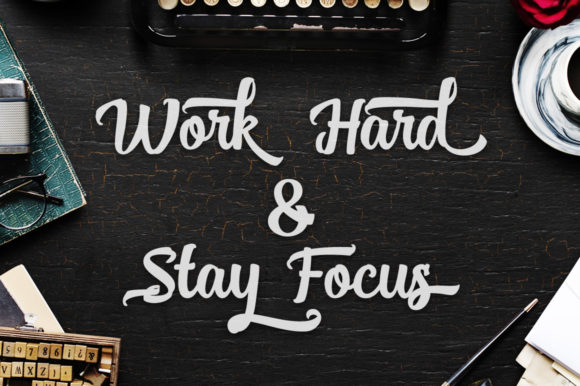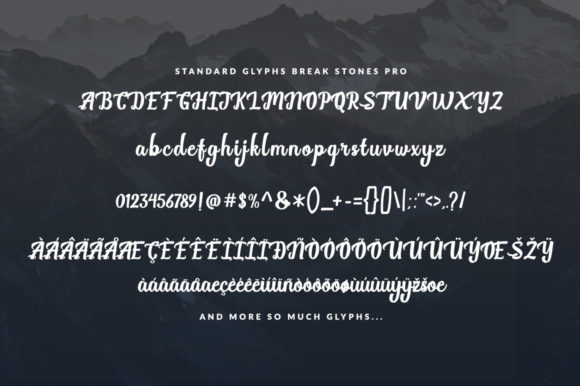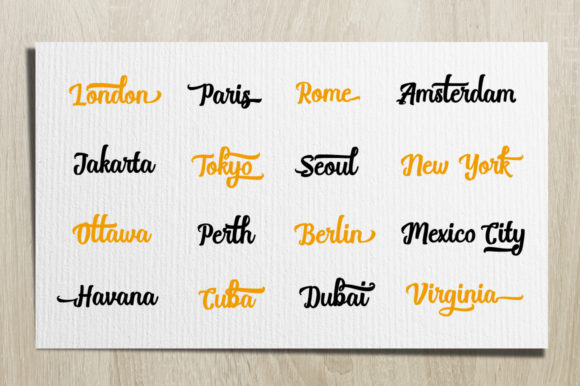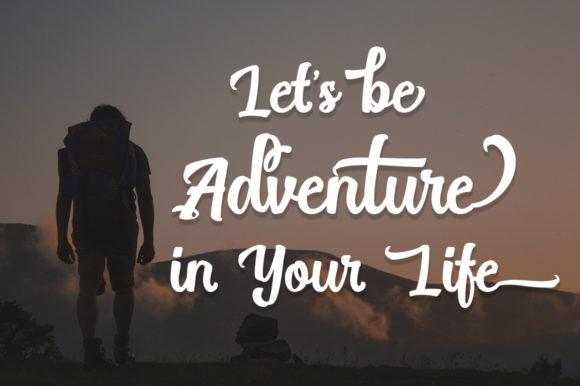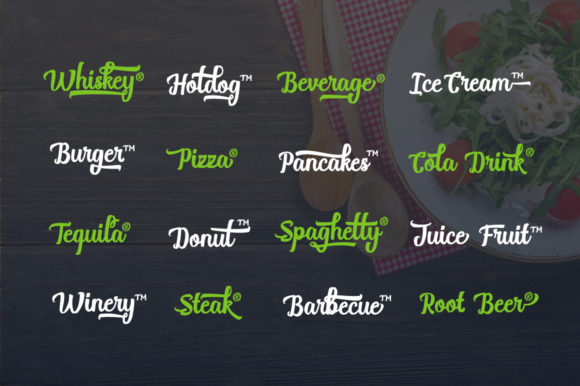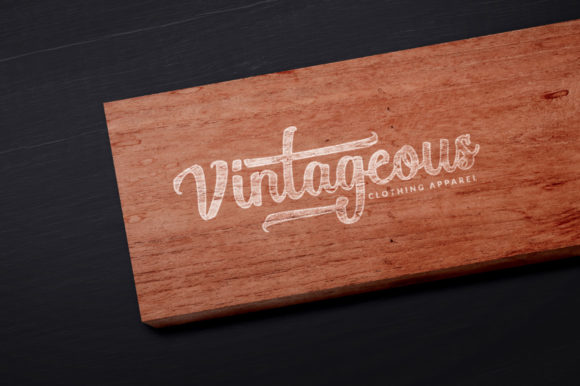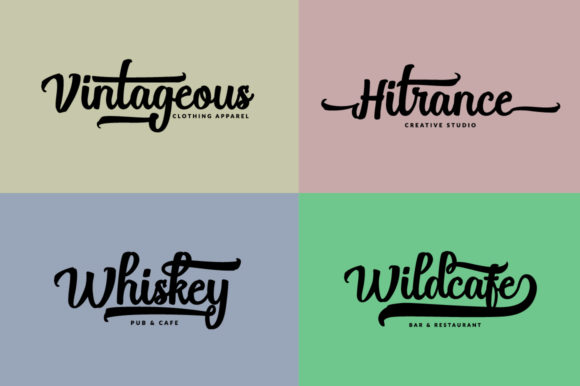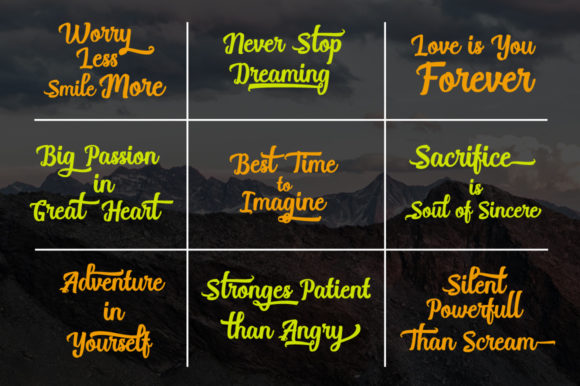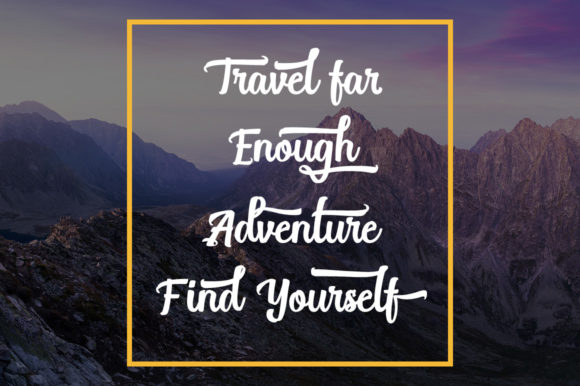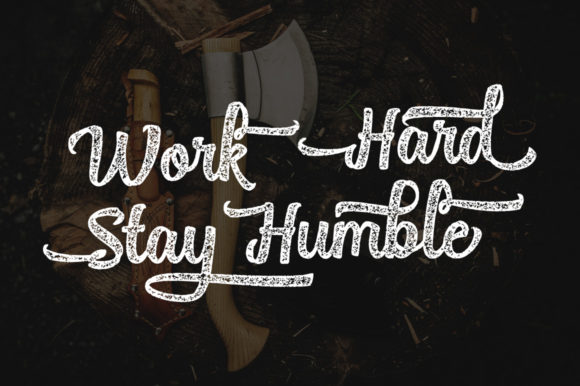
HomeScript FontsBreak Stones Font Script Fonts Break Stones Font FacebookXPinterestWhatsApp Break Stones Font Poster 2 Break Stones Font Poster 3 Break Stones Font Poster 4 Break Stones Font Poster 5 Break Stones Font Poster 6 Break Stones Font Poster 7 Break Stones Font Poster 8 Break Stones Font Poster 9 Break Stones Font Poster 10 Break Stones Font Poster 11 About Break Stones Font Break Stones is a playful brush-style script font. Get motivated by its adventurous character! DOWNLOAD ON CREATIVE FABRICAThis font is sold and delivered by Creative Fabrica. Font Canyon may earn a commission if you buy through this link. People also explored Maletha Pink Daisy Font Soban Chinese Monogram Font Balfontheim Signature Font Fish Lover Font Aussie House Font Montreal Script Font Paradise Font Small Heath Font 305 0 TagsBreak Stones Font Previous articlePintenium FontNext articlePinkalova Font LEAVE A REPLY Cancel reply Comment: Please enter your comment! Name:* Please enter your name here Email:* You have entered an incorrect email address! Please enter your email address here Website: Save my name, email, and website in this browser for the next time I comment. Personal Use Free Bitcrusher Condensed Bold Personal Use Free Read more about this font Color Personal Use Free Read more about this font Carrolina Personal Use Free Read more about this font Special Day Personal Use Free Read more about this font BLOG Free vs Paid Fonts: Why Investing in Premium Fonts Is Worth It Free vs Paid Fonts: Why Premium Fonts Are Worth It in 2025 The debate of free vs paid fonts continues in the design world. While... Transform Your Website: Elevate Your Typography with 7 Best Web Font Generators How to Cut Any Font on Cricut: Convert a Font to SVG (Free) Top 10 Handwritten Fonts That Elevate Your Designs